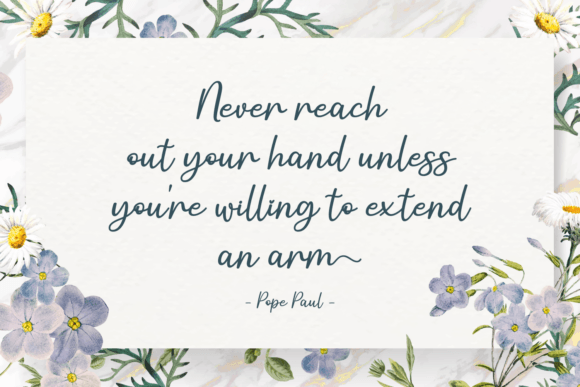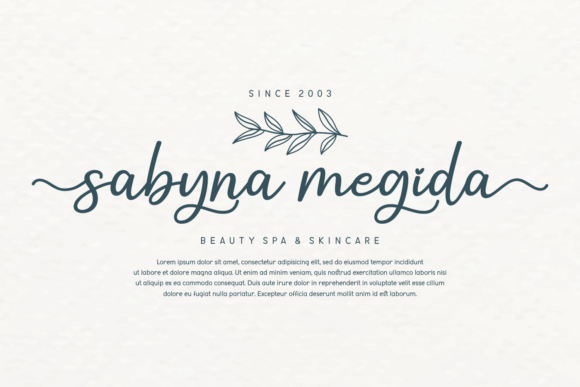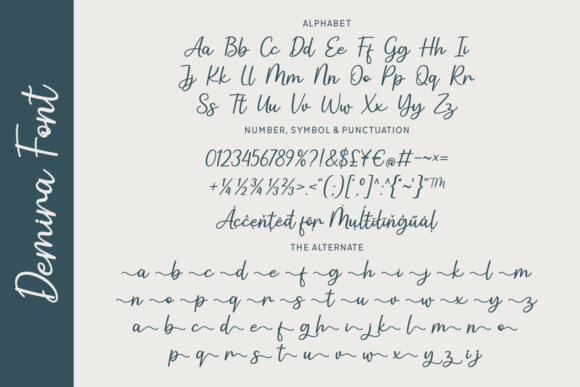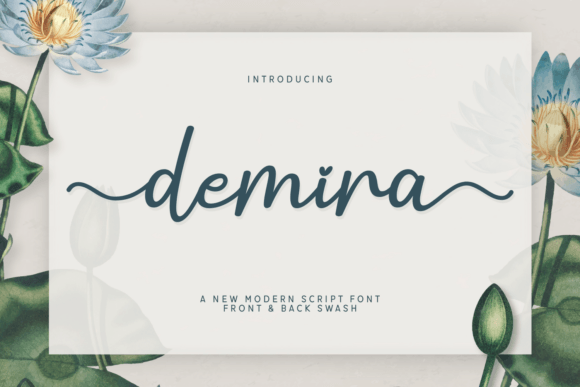
Introducing Demira Font: Elevate Your Designs with Elegance and Charm
Are you a designer or crafter looking for a font that exudes sophistication, elegance, and romance? Look no further than Demira Font, a sleek and modern script font that is sure to take your designs to the next level. With its clean lines, soft curves, and heart-inspired details, Demira is the perfect choice for a wide range of projects, from wedding invitations and logos to branding, product packaging, and social media designs.
The Features of Demira Font
Demira Font boasts a range of features that make it stand out from other script fonts. Its elegant front and back swashes bring a sense of fluidity and charm to any design, while its clean and sophisticated style ensures that it remains legible and versatile. The font’s soft, graceful curves and heart-inspired details create a warm and inviting feel, making it ideal for adding a personal and romantic touch to any project.
Perfect for Wedding Invitations and Branding
Demira Font is particularly well-suited for wedding invitations, where its elegant and romantic style can help set the tone for a special day. The font’s clean lines and sophisticated style also make it perfect for branding and logos, where it can help to create a lasting impression on customers. Whether you’re designing a logo for a new business or creating a brand identity for an existing one, Demira Font is a great choice.
Adding a Personal Touch to Product Packaging and Social Media Designs
But Demira Font isn’t just limited to wedding invitations and branding. Its versatility and charm also make it perfect for product packaging and social media designs. Whether you’re designing a label for a new product or creating a social media post for a client, Demira Font can help to add a personal touch and make your design stand out from the crowd.
Why Choose Demira Font?
So why choose Demira Font over other script fonts? Here are just a few reasons:
- Elegance and sophistication: Demira Font boasts a clean and sophisticated style that is perfect for a wide range of designs.
- Romance and charm: The font’s soft curves and heart-inspired details create a warm and inviting feel that is ideal for adding a personal and romantic touch to any project.
- Versatility: Demira Font is perfect for a wide range of projects, from wedding invitations and logos to branding, product packaging, and social media designs.
- Easy to read: Despite its elegant and cursive style, Demira Font remains legible and easy to read, making it perfect for designs where clarity is key.
Tips for Using Demira Font
Here are a few tips for using Demira Font in your designs:
- Pair with a sans-serif font: For a classic look, pair Demira Font with a sans-serif font like Arial or Helvetica.
- Use for headlines and titles: Demira Font is perfect for headlines and titles, where its elegance and sophistication can really shine.
- Add a personal touch: Use Demira Font to add a personal touch to your designs, whether it’s a wedding invitation or a social media post.
In conclusion, Demira Font is a sleek and modern script font that is perfect for designers and crafters looking to add a touch of elegance and charm to their designs. With its clean lines, soft curves, and heart-inspired details, Demira is the perfect choice for a wide range of projects, from wedding invitations and logos to branding, product packaging, and social media designs. So why not give Demira Font a try today and see the difference it can make in your designs?